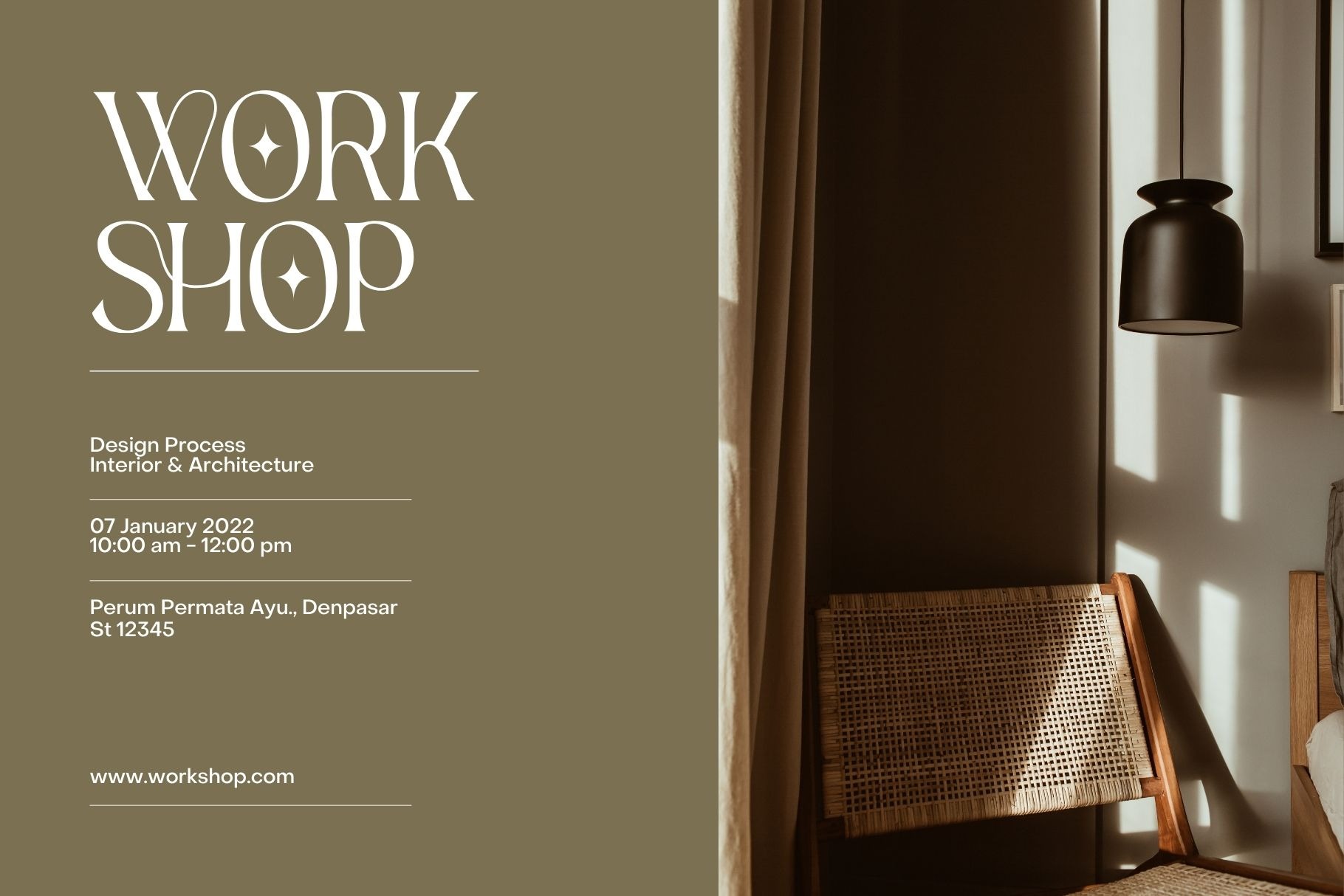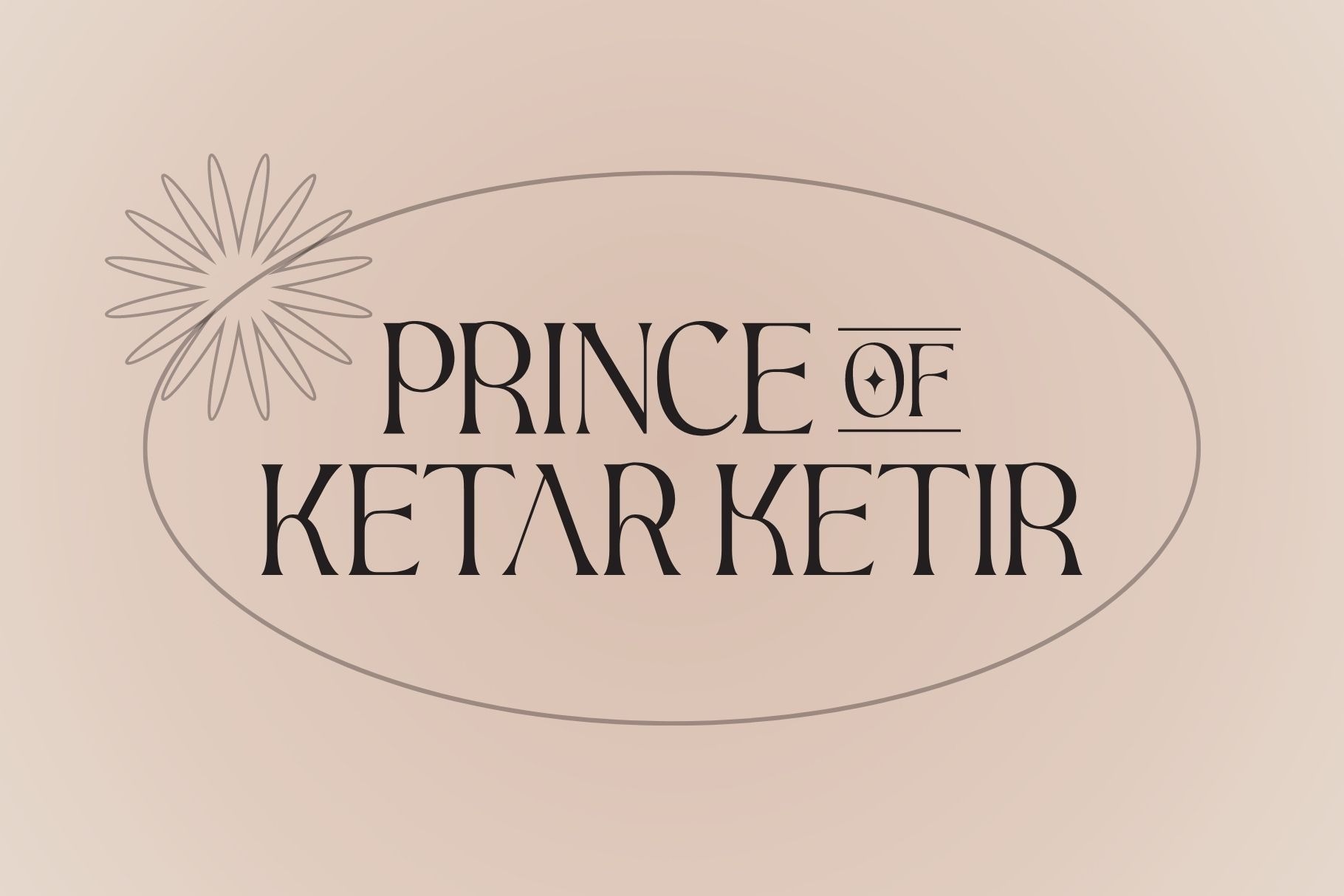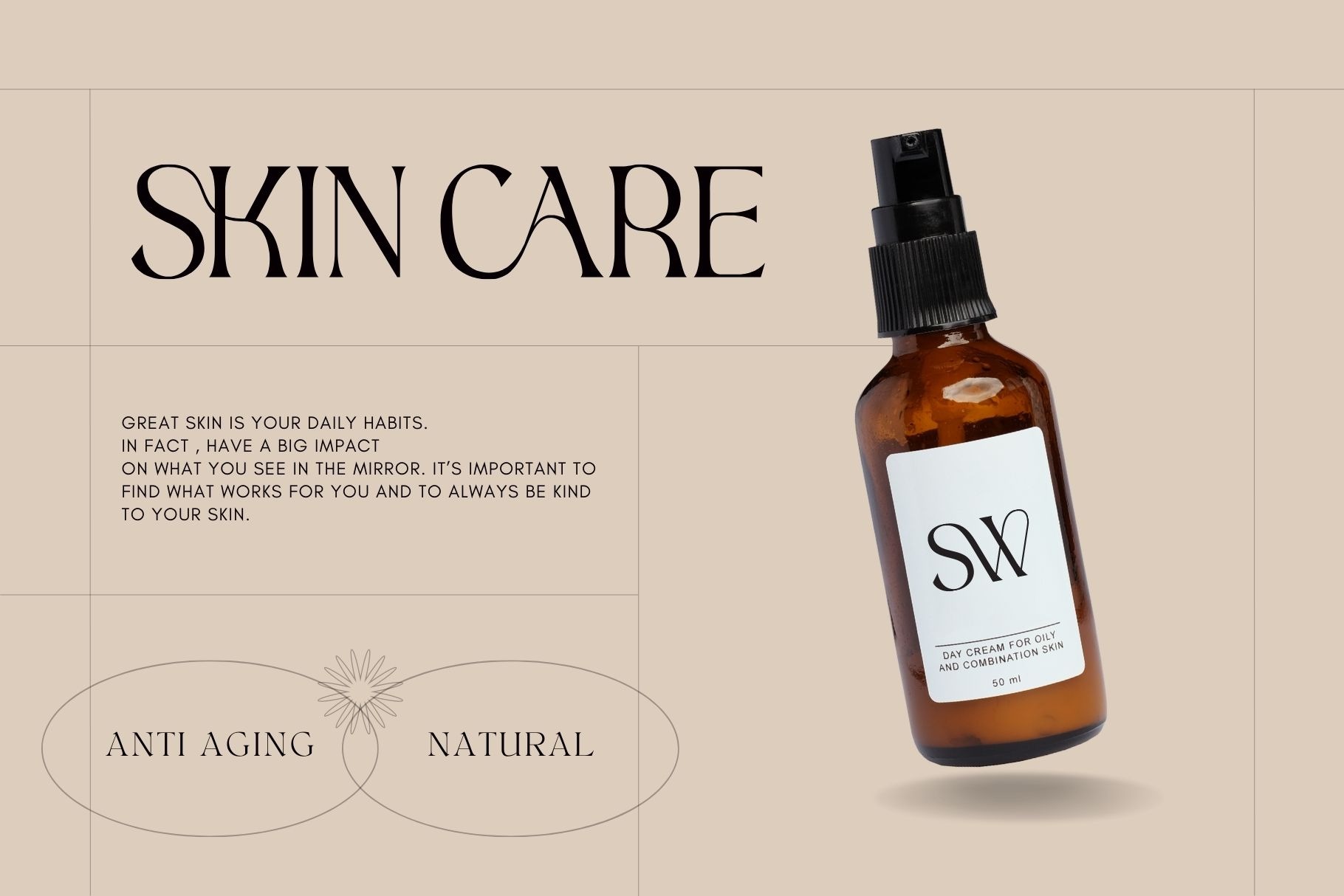
Aesthetic Serif Font
This is a chic and quirky lettered serif typeface manufactured by Nirmana Visual. It’s a mix between a classic serif and a futuristic sans serif. Trendy and stylish, this font will elevate each of your creations.
This font is perfect for fashion related branding or editorial design and displays both masculine and feminine qualities.